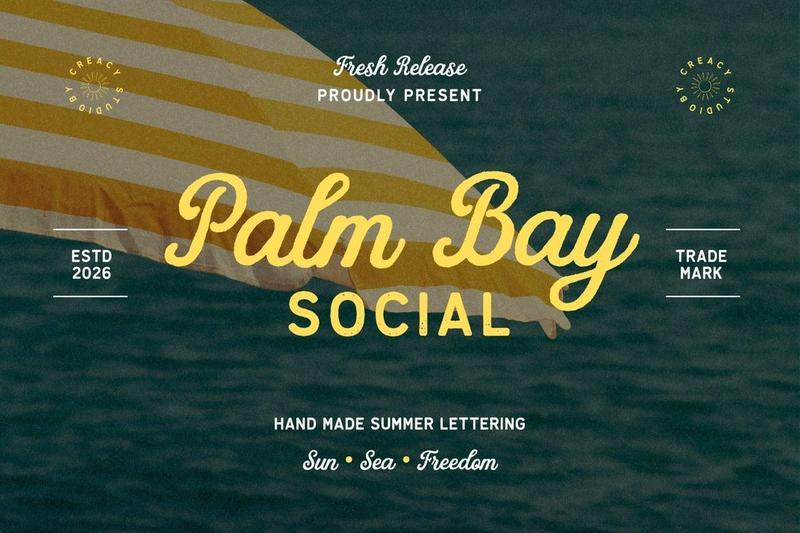
**Palm Bay Social** is a relaxed and nostalgic font duo inspired by endless summer days, beach clubs, coastal road trips, vintage postcards, and sun-soaked seaside destinations. Combining a smooth handcrafted script with a bold distressed sans serif, this typeface pair creates the perfect balance between elegance, warmth, and vintage character.
Designed to capture the spirit of tropical escapes and retro beach culture, Palm Bay Social works beautifully for branding, packaging, social media graphics, logos, travel content, restaurant identities, and lifestyle projects.
Whether you’re designing a beach resort logo, summer event poster, destination marketing campaign, or social media content, Palm Bay Social delivers an authentic handcrafted coastal aesthetic.
Palm Bay Social Script
Palm Bay Social Sans Serif
**Font Features**
* Handcrafted Brush Script
* Smooth Connected Letterforms
* Bold Vintage Sans Companion
* Distressed Retro Texture Style
* Coastal & Summer-Inspired Design
* Easy to Mix and Match
* Perfect for Layered Typography
**Perfect For**
* Beach Club Branding
* Resort & Hotel Logos
* Summer Campaigns
* Travel Posters
* Social Media Templates
* Coastal Lifestyle Brands
* Packaging Design
* Cafe & Restaurant Branding
* Wedding Invitations
* Product Labels
* Magazine Headlines
* Vintage Advertising
* Instagram Content
* Destination Marketing
* Event Promotions